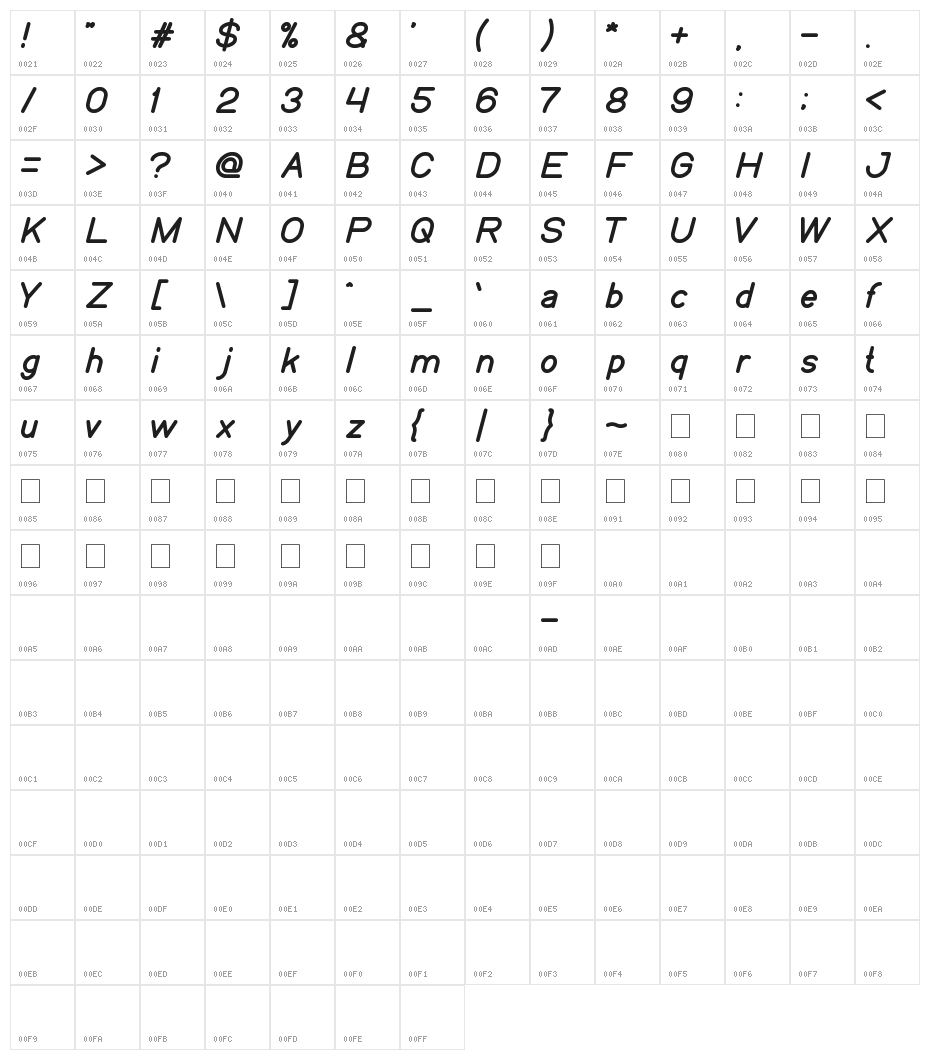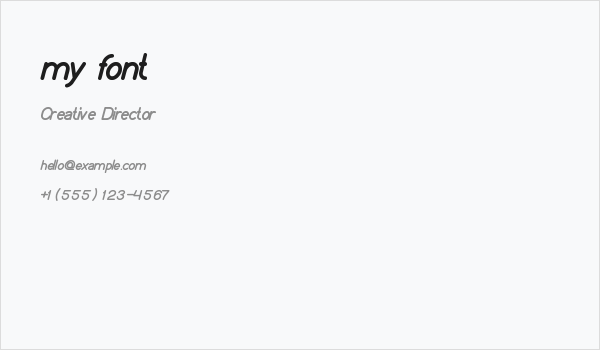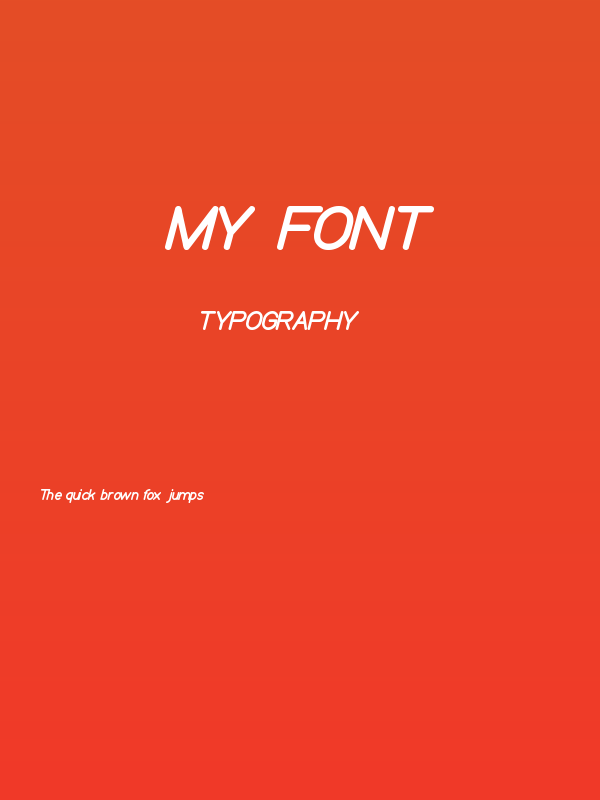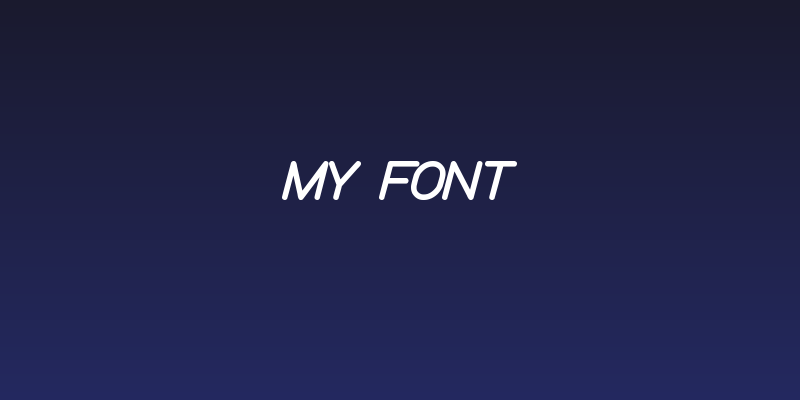
my font Font
my font Description
This font features a sleek, modern design with a slight slant, giving it a dynamic and energetic appearance. The characters are rounded and smooth, providing a friendly and approachable feel. The uppercase and lowercase letters maintain consistent proportions, ensuring readability. The numerals and special characters are designed to match the overall style, with a uniform stroke width that enhances its clean look. This font is versatile, suitable for both digital and print media, and can be used to convey a sense of modernity and professionalism.
Use CaseHeadlines, Logos, Digital Media
Proposed ProjectsIdeal for branding, advertising, digital media, and modern web design.